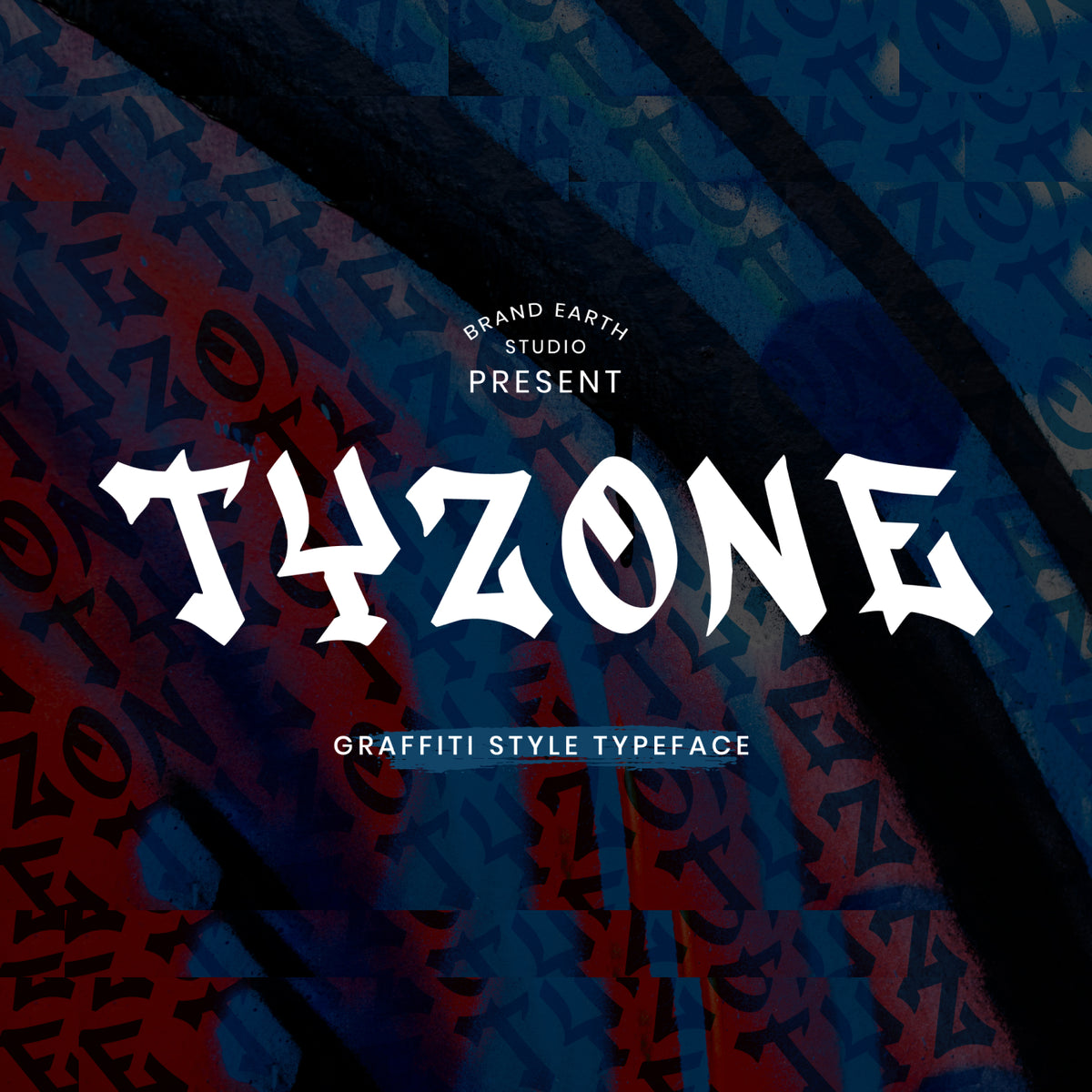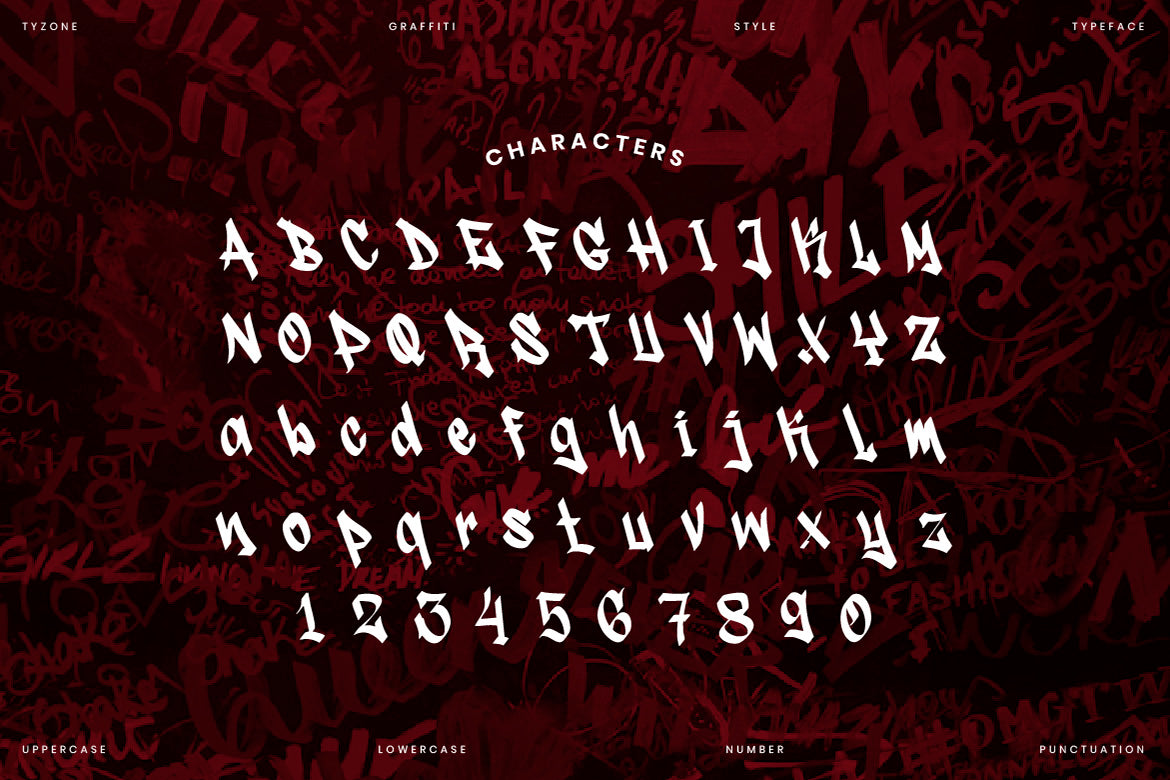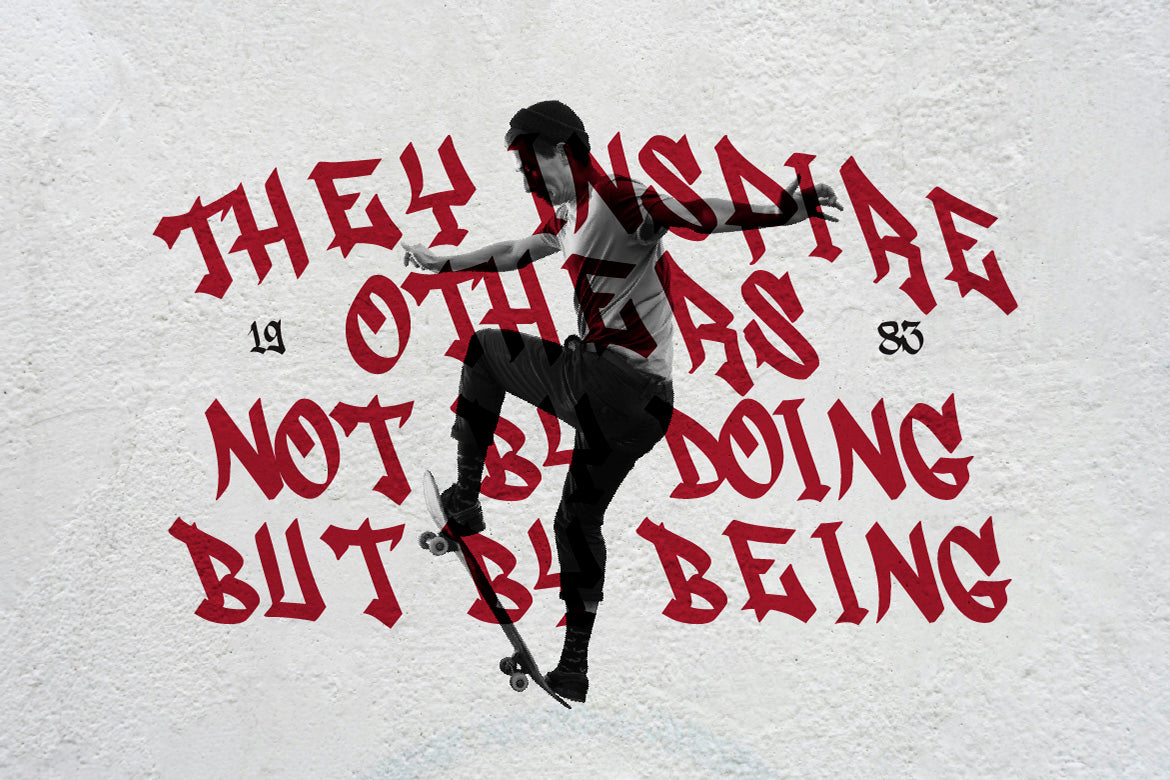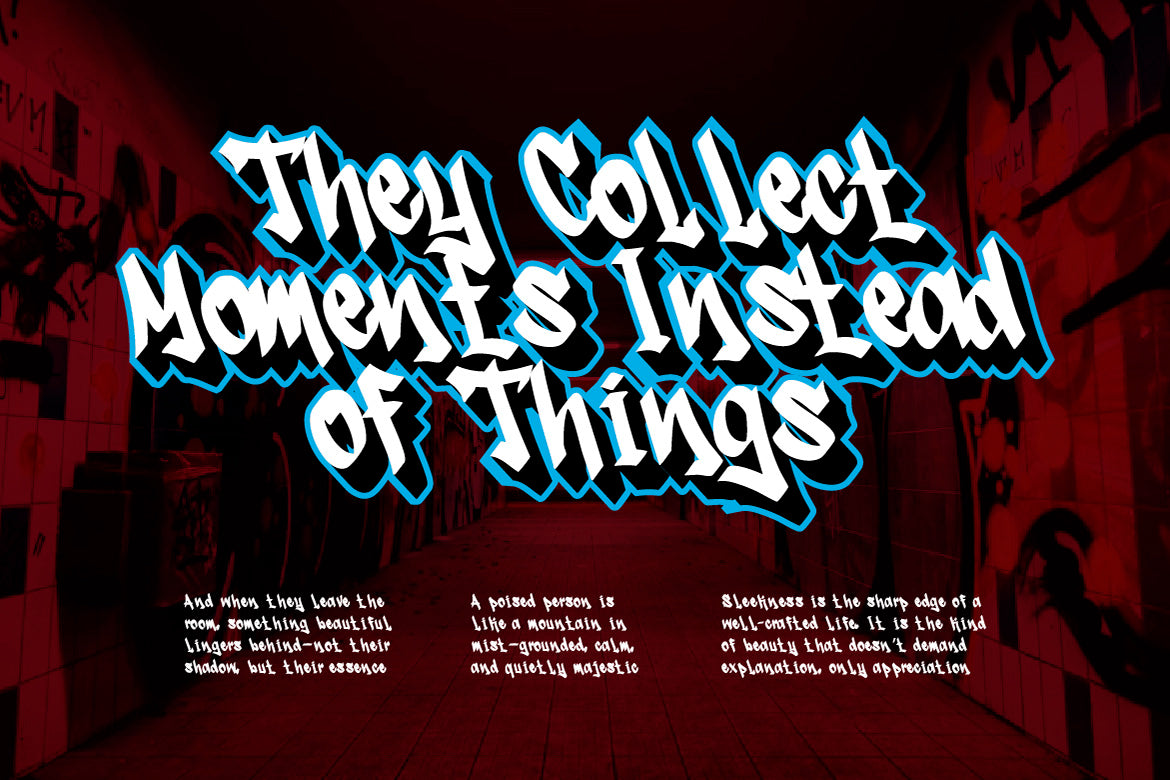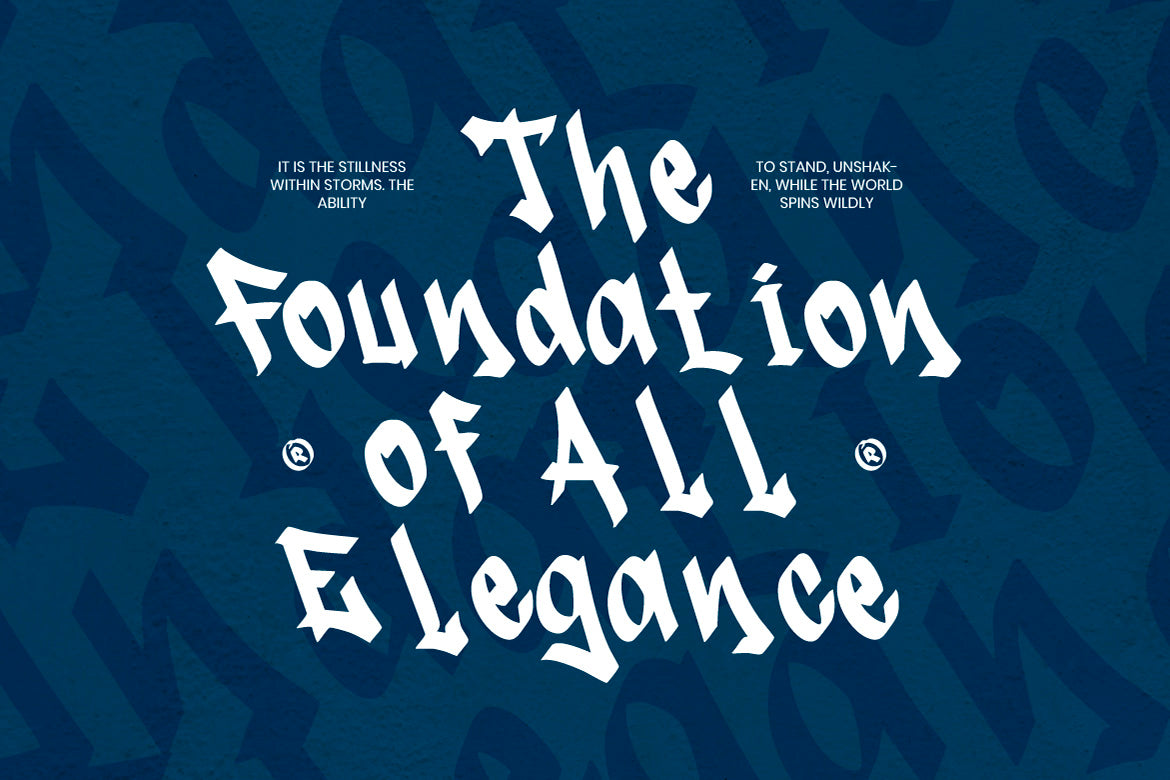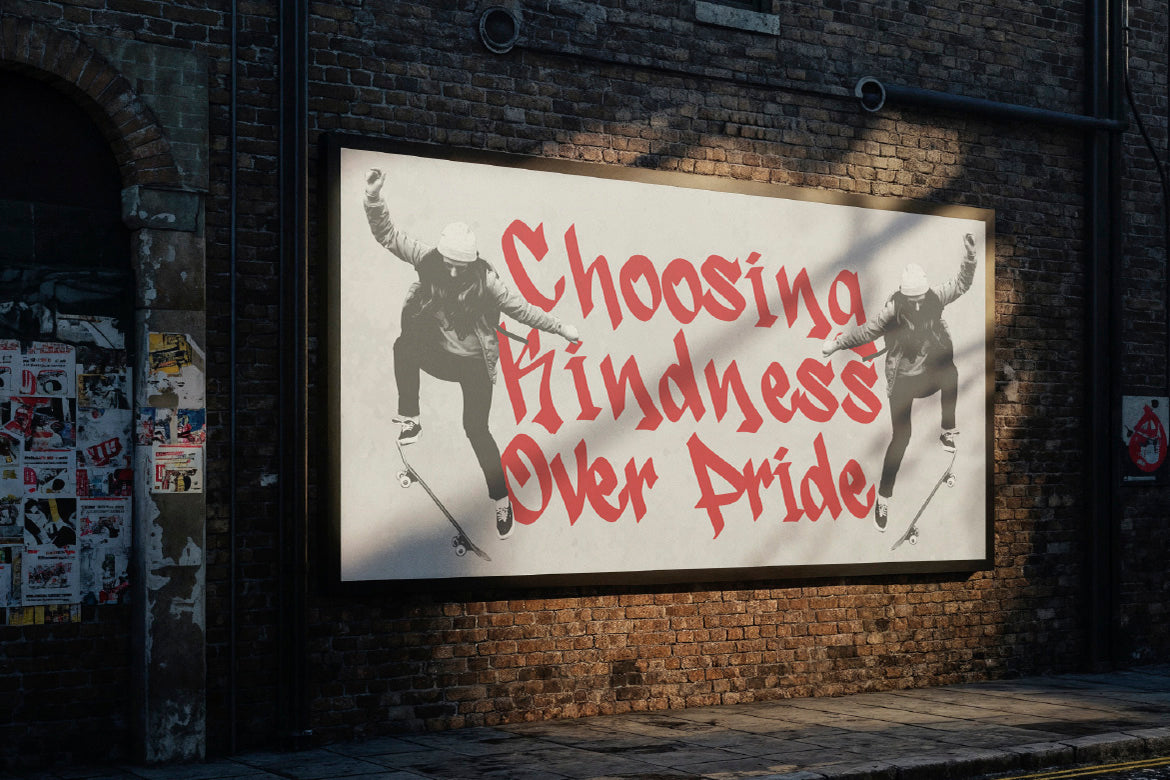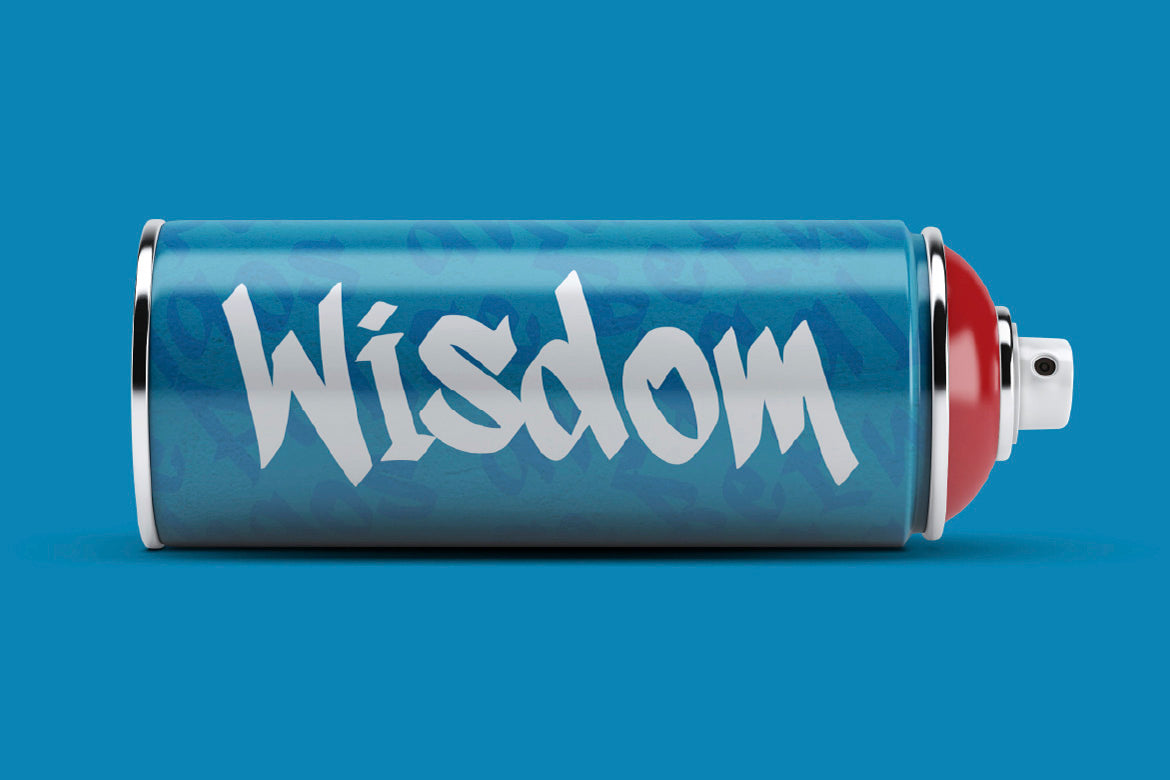
Tyzone Graffiti Style Typeface Font
Tyzone is a bold graffiti display typeface with sharp, irregular letterforms inspired by street lettering and expressive urban graphics. Its characters feature angular cuts, pointed terminals, uneven contours, and distinctive interior shapes that give each letter a raw, hand-drawn personality. The strong silhouette keeps the typeface highly visible at large sizes, making it especially effective for impactful headlines, logos, posters, album artwork, apparel graphics, and street-inspired branding. Best suited for display use rather than long paragraphs, Tyzone works particularly well when typography needs to become a dominant visual element.
Tyzone is ideal for designs that need a rebellious, energetic, and street-inspired personality. Use it for graffiti artwork, streetwear graphics, music posters, album covers, event flyers, skate and urban culture projects, bold logo concepts, stickers, merchandise, and social media artwork. Its distinctive shapes work best as large headlines or standalone lettering where the unusual character forms can become part of the overall composition.
Tyzone is a bold graffiti display typeface featuring angular cuts, pointed terminals, and uneven contours with uppercase, lowercase, numerals, and punctuation. It is available in TTF, OTF, and WOFF formats.